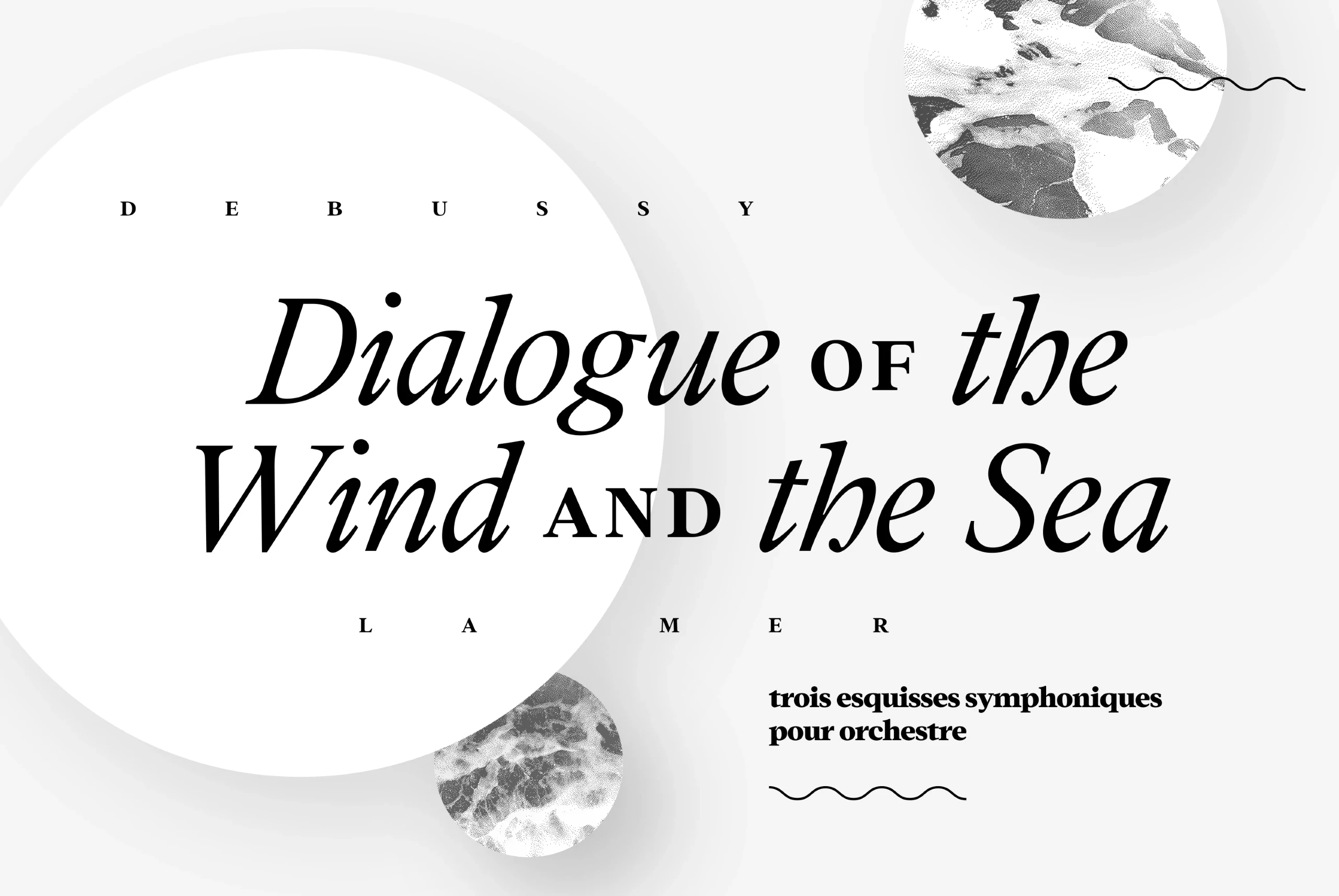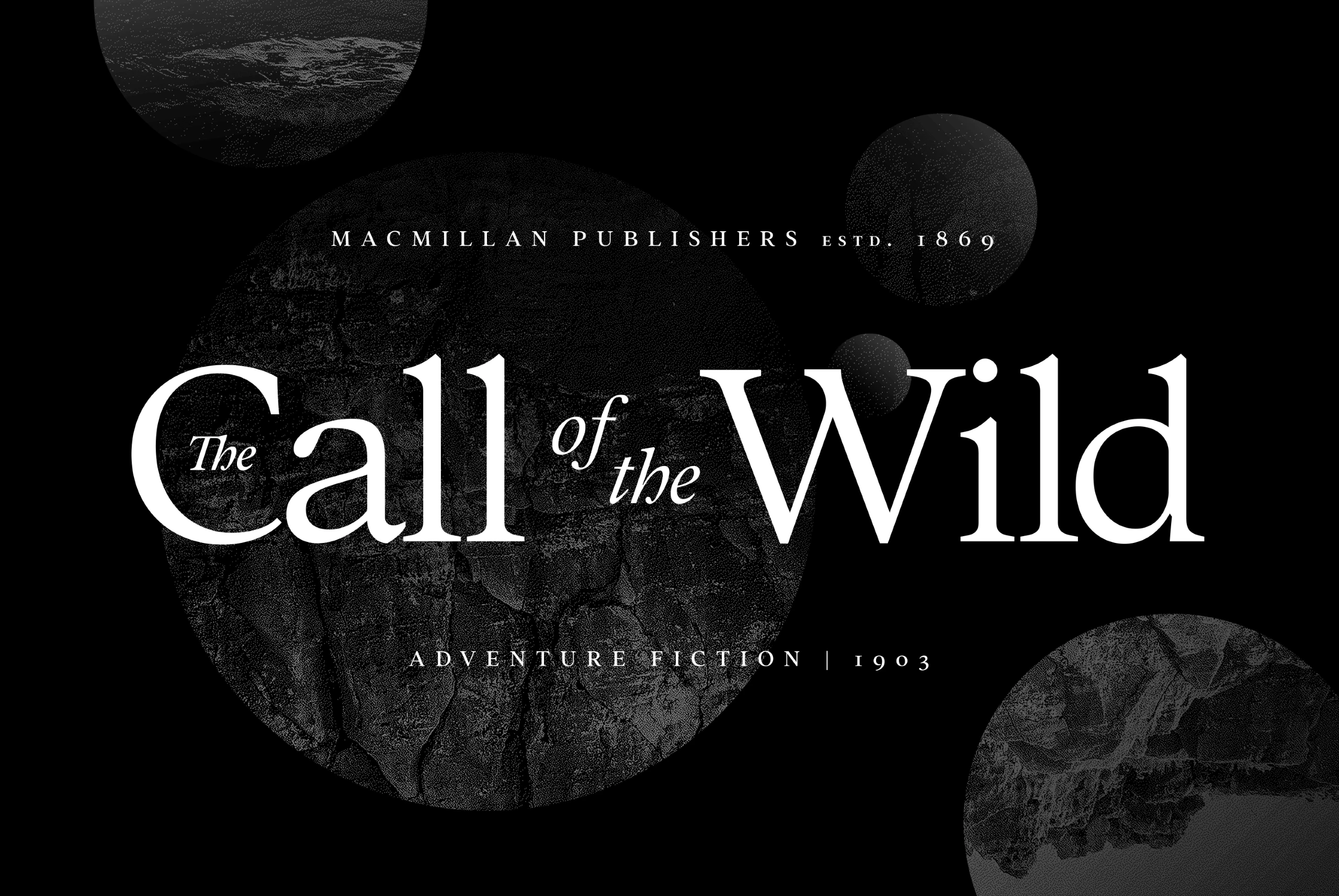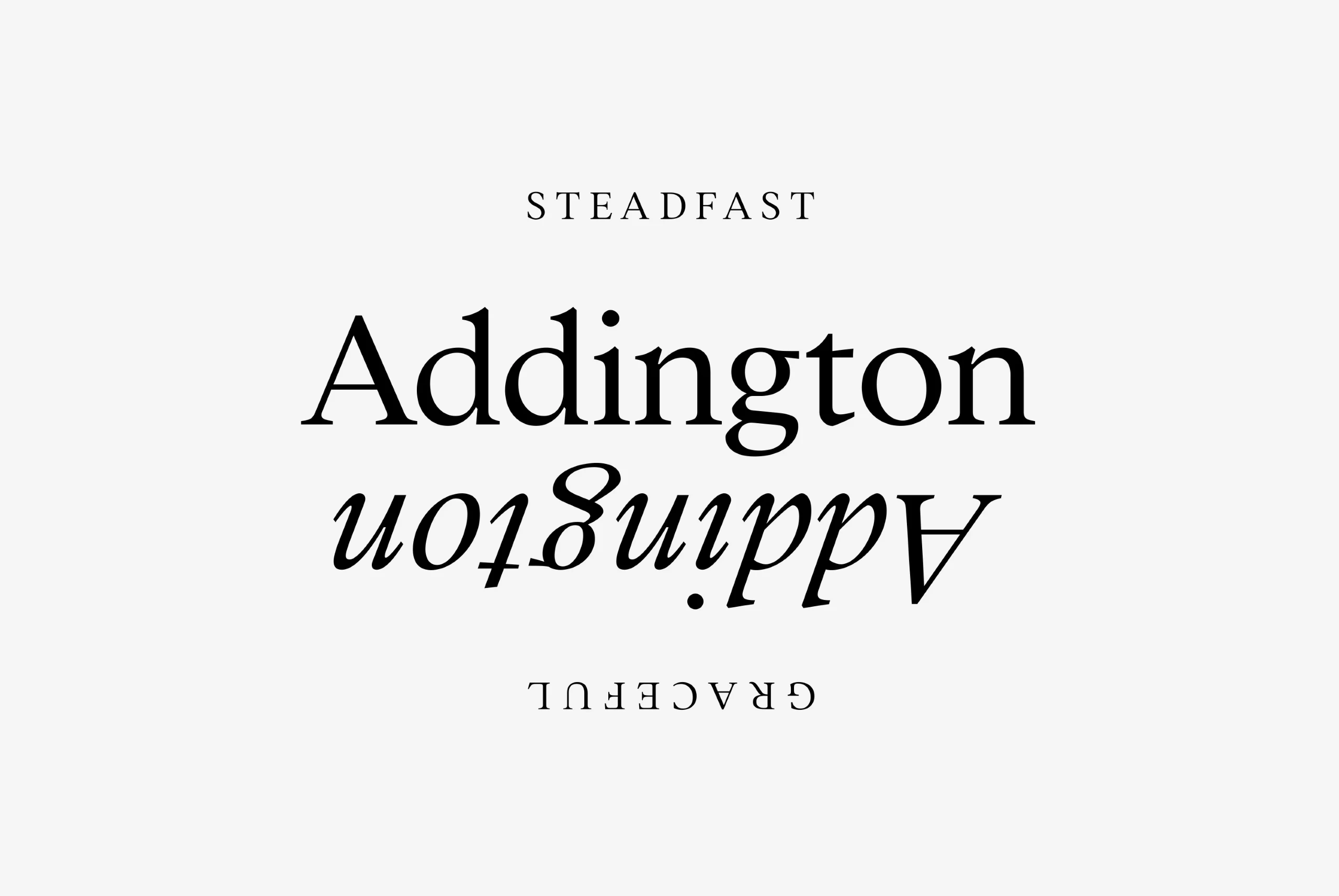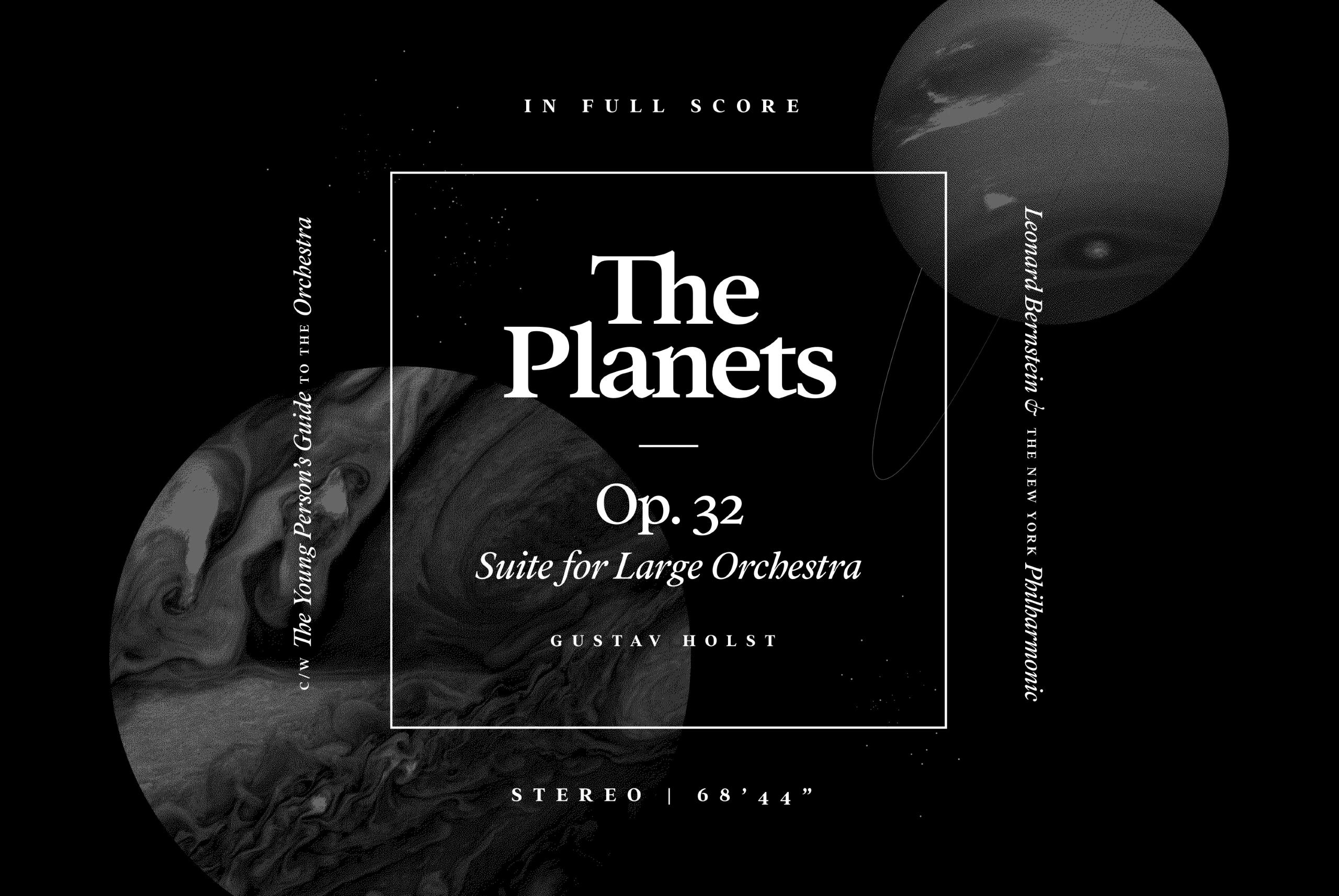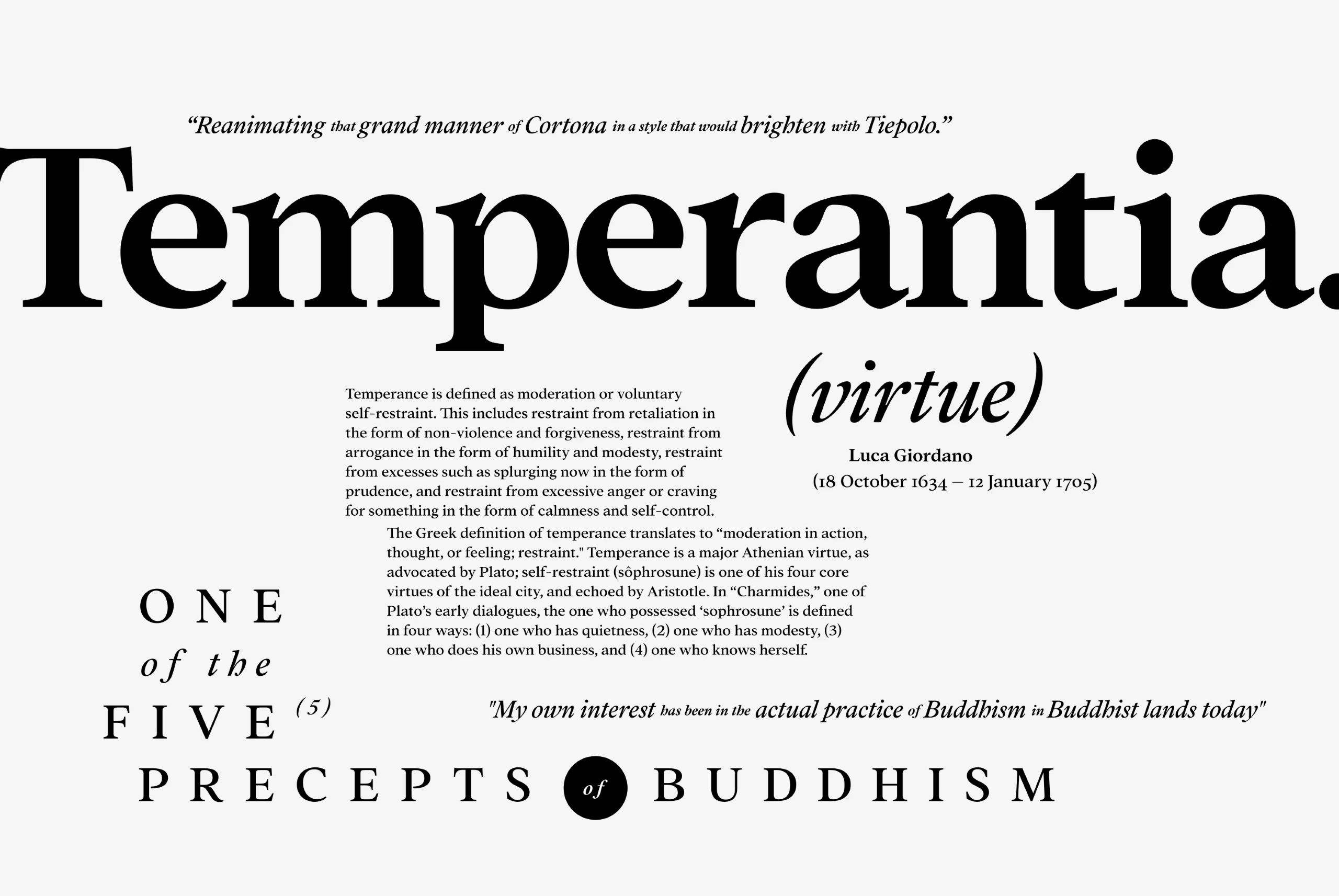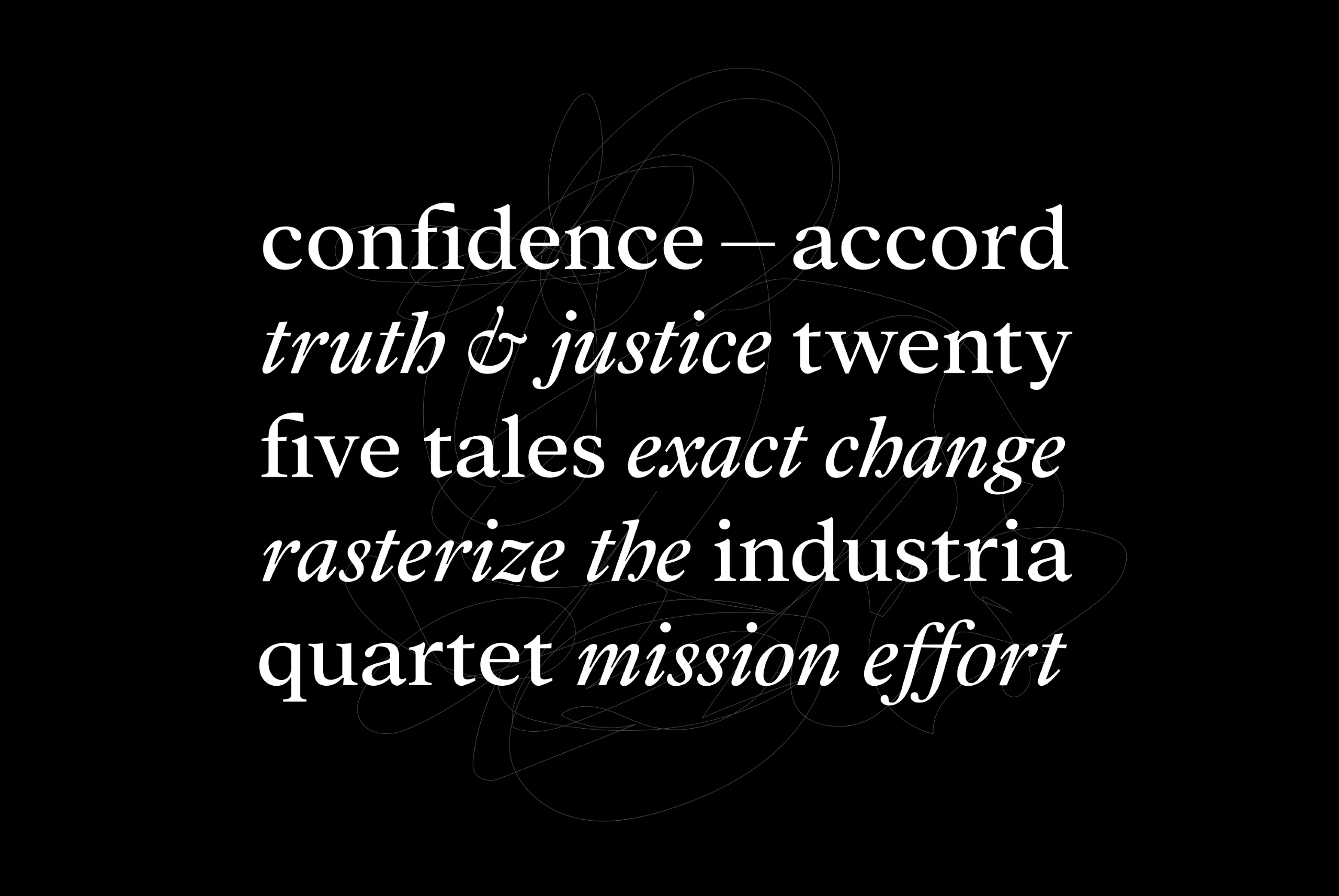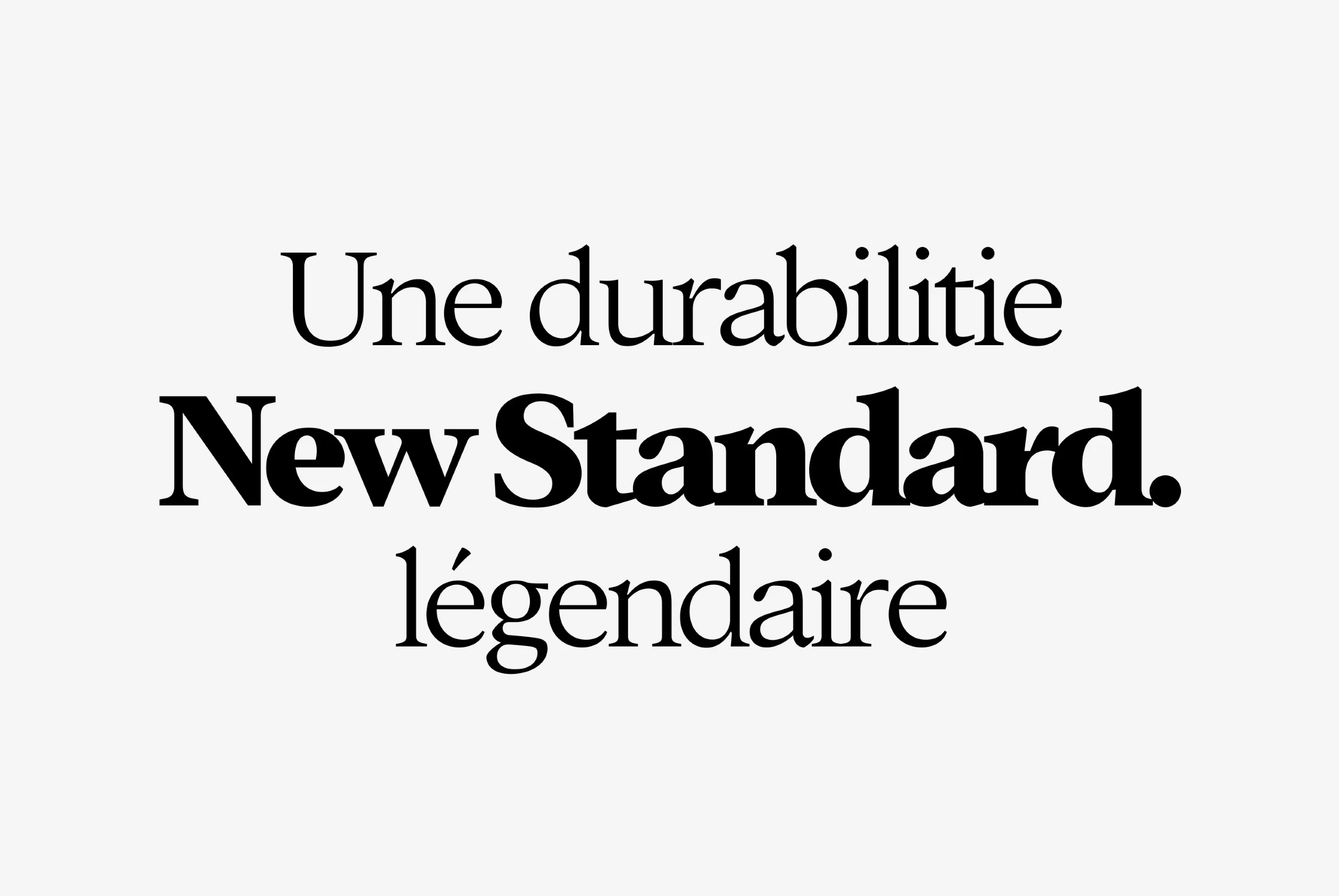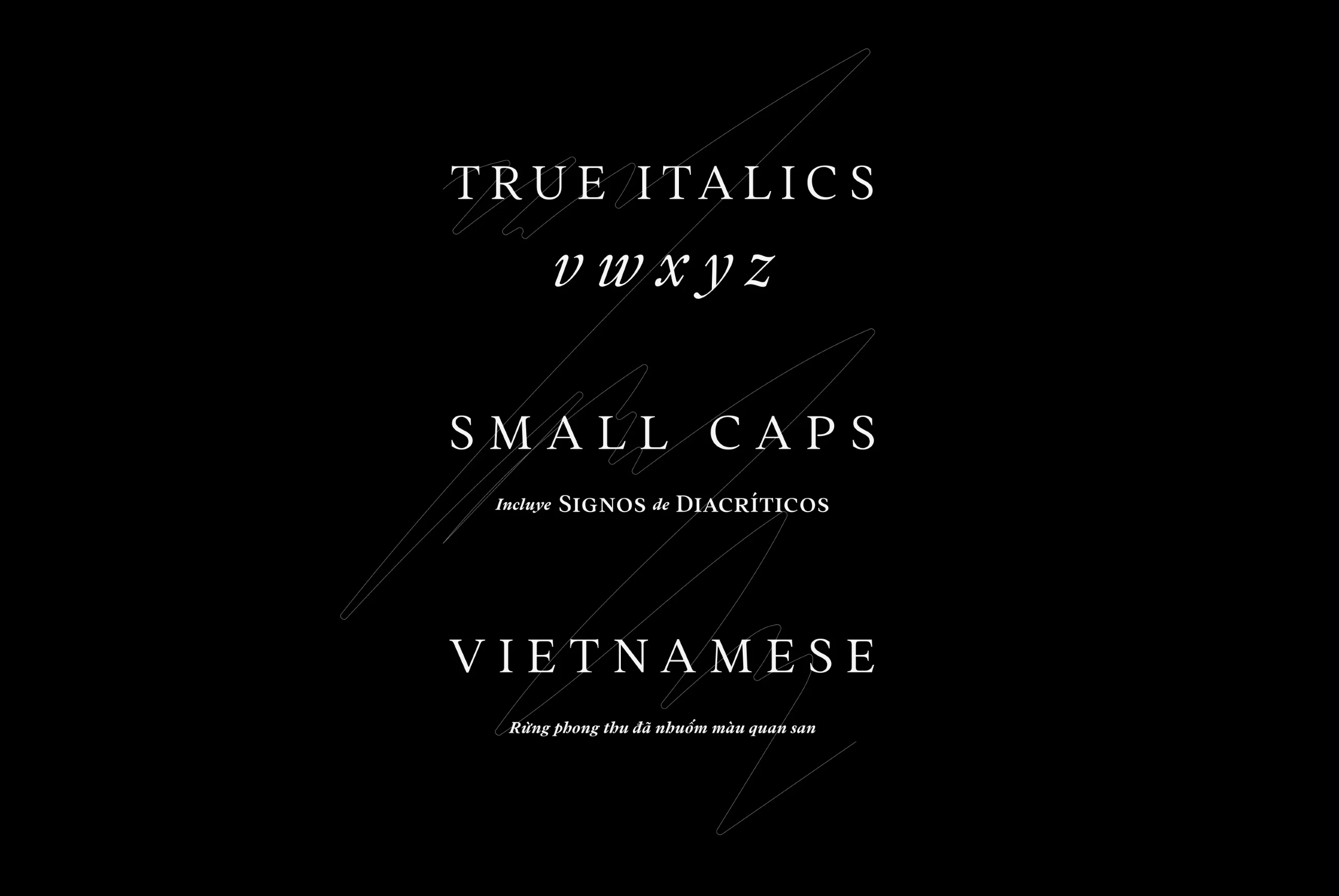
Addington
Addington is a graceful and reliable serif, useful in any application. Beautiful while practical, Addington is designed for excellence in text-heavy settings while doubling as a capable, bold display typeface. Addington CF is a serif font family. This typeface has fourteen styles and was published by Connary Fagen Type Design.
seven Weights in Latin & Vietnamese Script
Language support includes Catalan, Chinese Pinyin, Croatian, Czech, Danish, Dutch, English, Filipino, Finnish, French, Fula, German, Hungarian, Indonesian, Italian, Latvian, Malay, Maltese, Norwegian, Polish, Portuguese, Romanian, Slovak, Slovenian, Spanish, Swedish, Turkish, Vietnamese